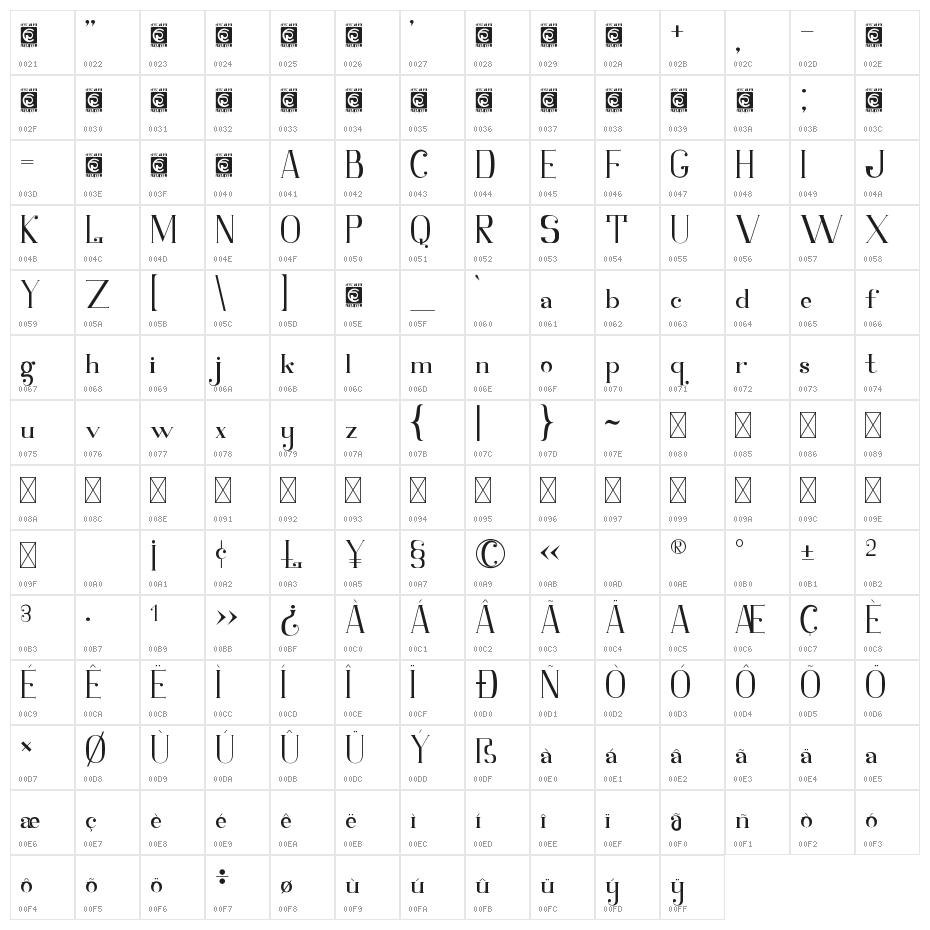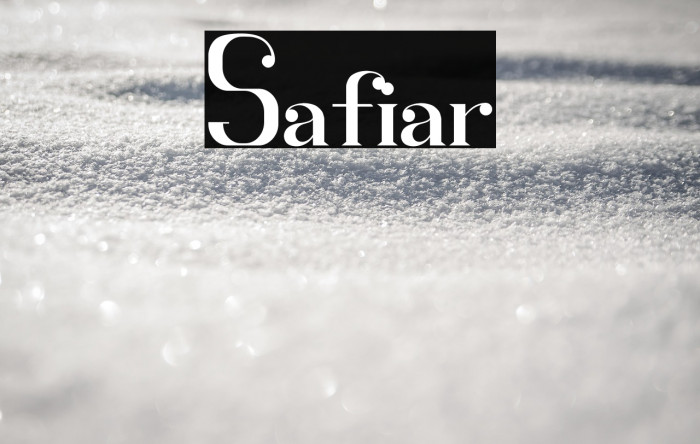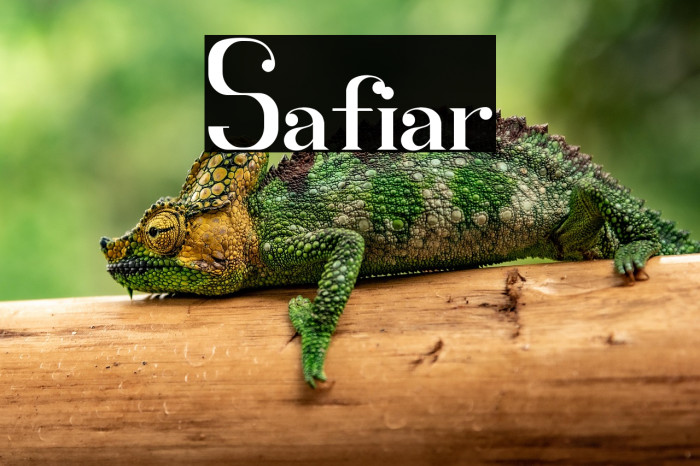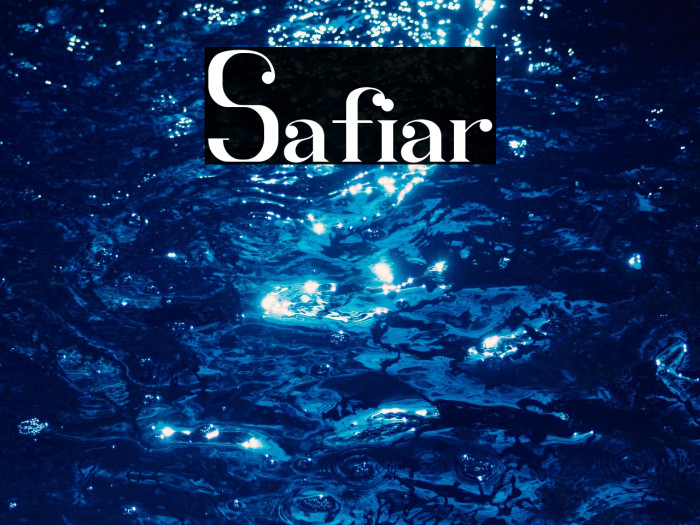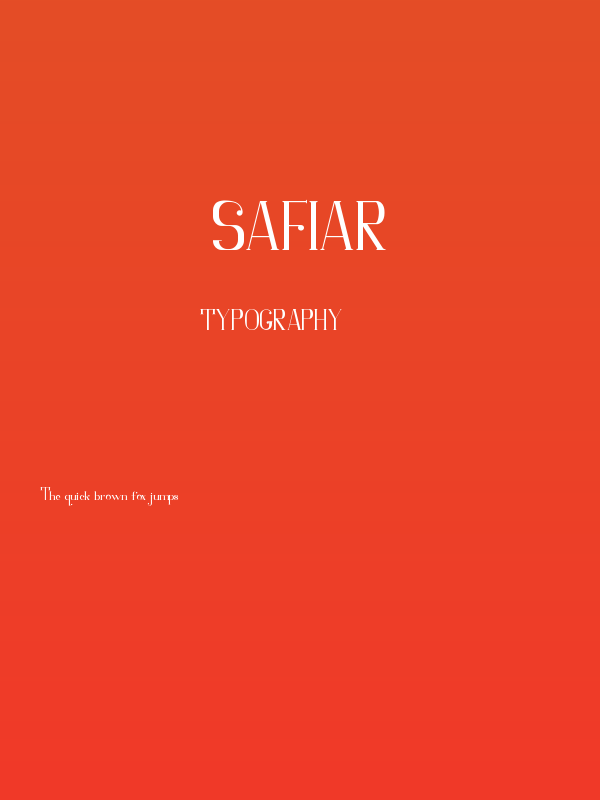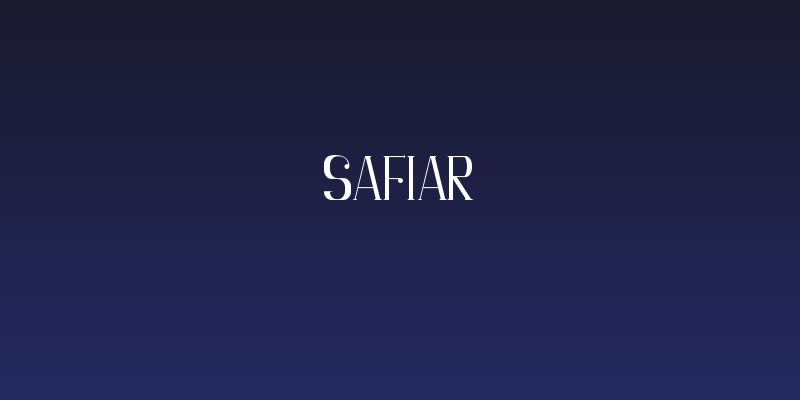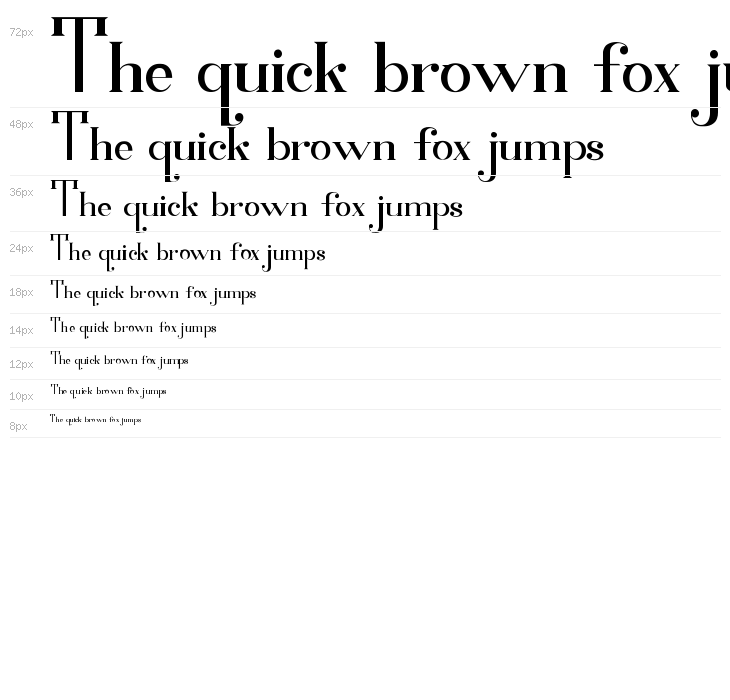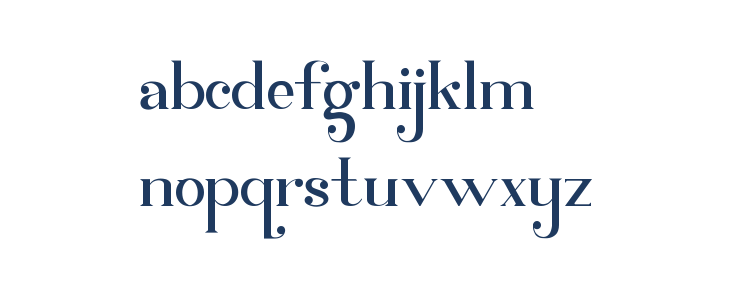
Safiar Font
Safiar Description
This font features a unique blend of modern and vintage elements, characterized by its elegant and elongated letterforms. The uppercase letters are particularly striking, with some characters featuring decorative dots and serifs that add a touch of sophistication. The lowercase letters maintain a consistent style, with smooth curves and a balanced weight that ensures readability. The numerals and special characters are designed to complement the overall aesthetic, making this font versatile for various design needs.
| Overall Style | Modern Vintage |
| Use Case | Headlines, Logos, Invitations |
| Proposed Projects | Ideal for branding projects, luxury product packaging, editorial design, and invitations. |